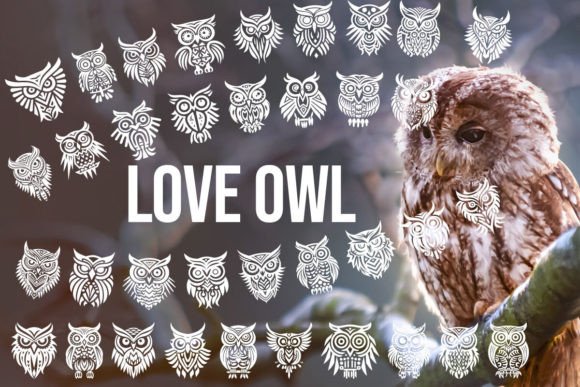
Immerse yourself in the enchanting world of the Love Owl Font collection. Created by the talented MOMAT THIRTYONE, this exceptional dingbats font family boasts 36 unique owl-inspired designs that are sure to captivate your imagination.
Each letter, from A to Z, is intricately adorned with the essence of an owl's charm, lending a whimsical touch to your creations. Let your creativity take flight as you explore the versatility of these fonts across various projects such as invitations, logos, and digital art.
What sets the Owl Dingbats Fonts apart is the meticulous attention to artistic details. Every symbol captures the mystic qualities of owls, adding a touch of intrigue to your designs. These fonts breathe life into your work, infusing it with an enigmatic allure that will leave your audience spellbound.
Discover the power of owls and elevate your design game with the Love Owl Font collection. These fonts are not just ordinary tools; they are gateways to a world where imagination knows no bounds. Each character holds the potential to transform your projects into works of art that are truly one-of-a-kind.
Imagine the impact of an owl-inspired logo that symbolizes wisdom and sophistication. Picture the enchanting invitations that will leave a lasting impression on your guests. With the Love Owl Font collection, your creativity takes center stage, and your designs become a reflection of your unique style and vision.
Don't miss out on this opportunity to add a dash of magic to your designs. The Love Owl Font collection is waiting to be explored, and the possibilities are endless. Unlock the secrets of these majestic creatures and let your imagination soar like never before.